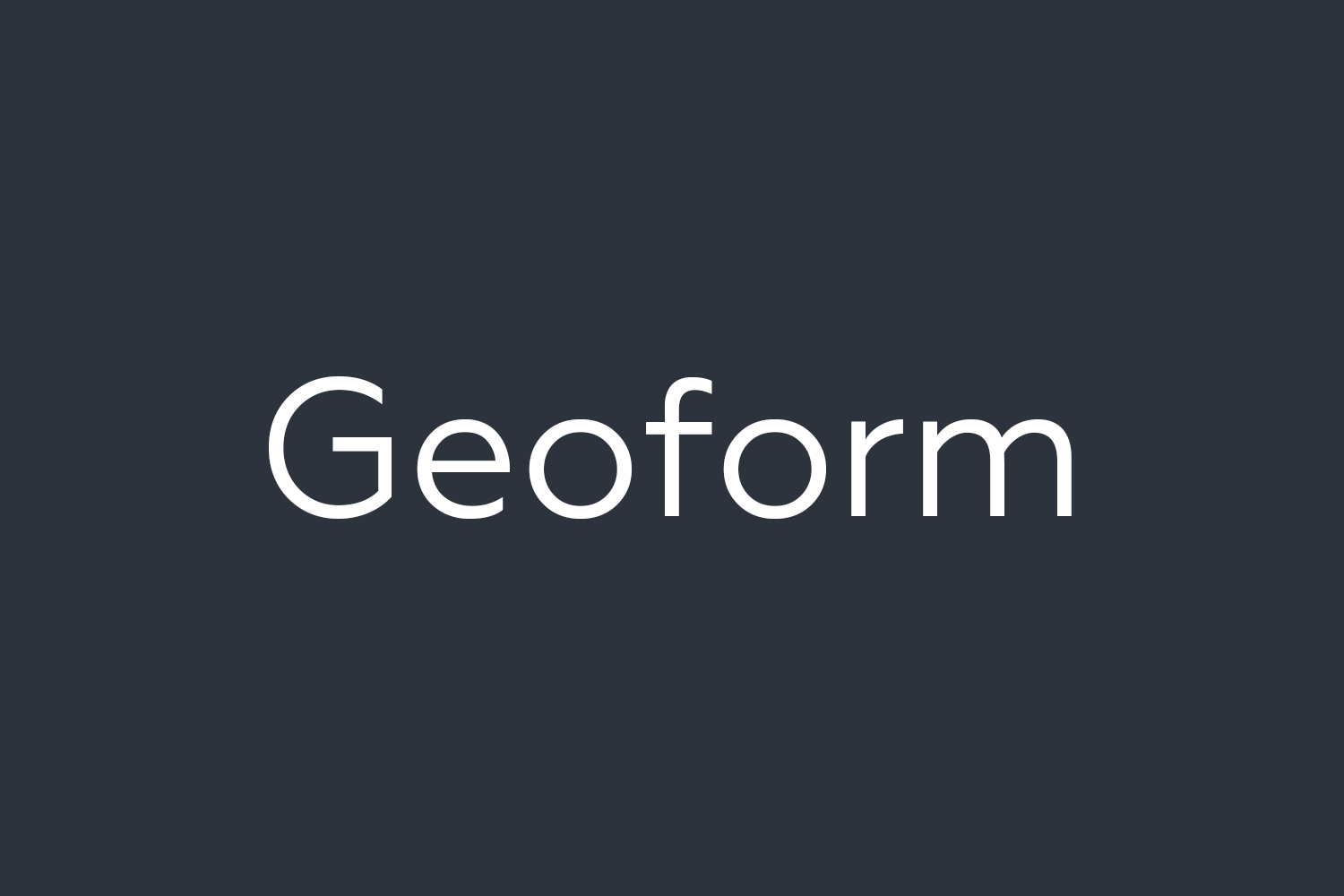
Geoform is a minimalist and modern sans-serif font designed by Typeson to bring clarity and structure to your creative projects. With its geometric shapes, clean lines, and balanced proportions, this free decorative typeface works perfectly for crafting sleek logos, magazine headers, digital interfaces, brand kits, and more. Available in TTF/OTF formats — ideal for designers seeking a professional, readable font that enhances legibility without overpowering your layout.
Why Choose Geoform?
- Clean Geometric Style: Combines precision with simplicity for a contemporary, functional appearance.
- Ideal for Editorial Design: Perfect for blog headers, article titles, or advertising campaigns needing a crisp tone.
Where to Use Geoform?
Geoform shines across a variety of design applications:
- Logos & Brand Identity: Adds sophistication to brand identities for tech startups, lifestyle blogs, or minimalist studios needing a clean tone.
- Digital Interfaces: Ideal for web headers, landing page buttons, or mobile app text where clear communication is essential.
- Packaging Design: Enhances product tags on artisanal goods, clothing labels, or food packaging requiring a modern look.
- Editorial Headers: Stands out in blog titles, magazine covers, and banners with a crisp, stylish charm.
- Social Media Graphics: Creates bold text overlays for Instagram Stories, TikTok videos, or YouTube banners with a sleek presence.
Design Tips with Geoform
- Glyphs: Uppercase (A-Z), lowercase (a-z), numerals, punctuation, basic Latin characters.
- Language Support: English, Western & Central European, Greek, Cyrillic (Russian, Serbian, Czech, Polish, etc.).